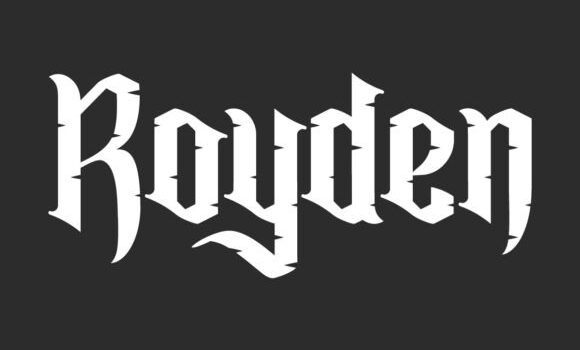
royden
Royden Font – Free Download Introduction to Royden Font Royden is a rough textured, bold and cool blackletter font. 📸 Preview Gallery 6 images 📌 Product Name Royden Font 👤 Author vintype 📂 Category Explore ⬇️ Download Royden Font FREE